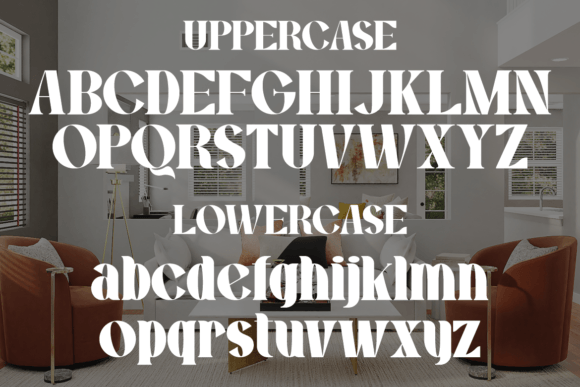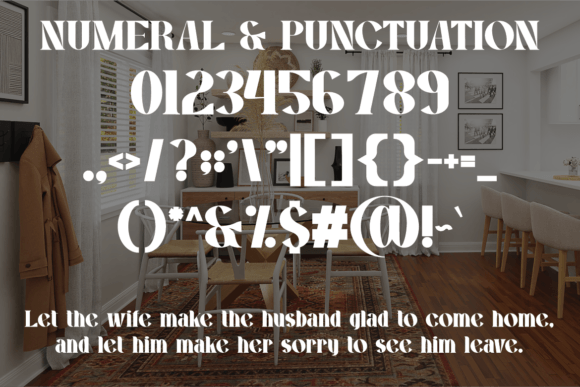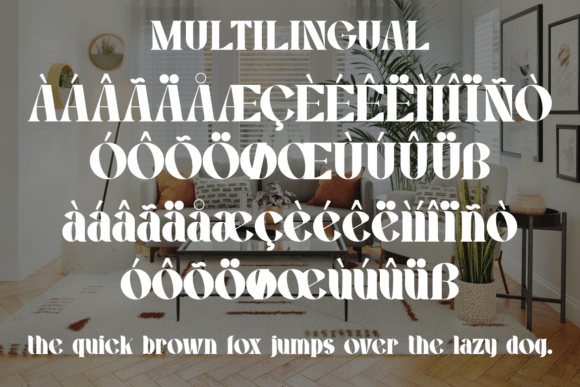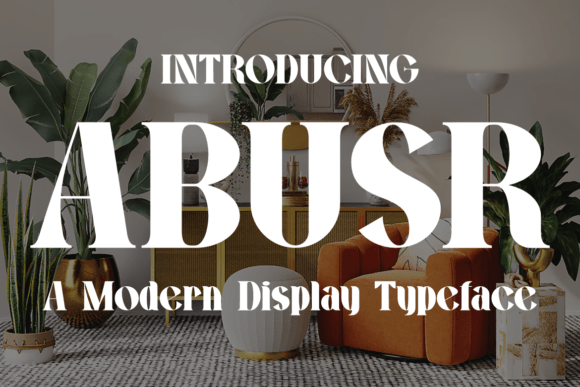
Introduction to Abusr Font
This font is a typographic masterpiece that harmonizes elegance and sharpness.
Every letter within this font is meticulously designed, with a keen focus on balanced proportions and impeccable alignment This font is well-suited for a variety of contexts, such as print design, promotional materials, or magazine layouts.
Key Features of Abusr Font
Why Choose Abusr Font?
Abusr Font offers exceptional quality and versatility, making it a valuable addition to your design toolkit. Whether you’re creating for personal projects or commercial use, Abusr Font delivers professional results.